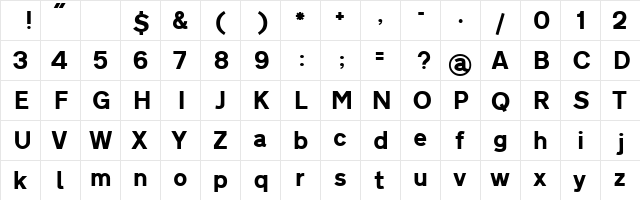
Roadgeek Transport Heavy Regular
Design Context for Roadgeek Transport Heavy Typeface
Roadgeek Transport Heavy brings high-energy athletic personality to the page — its confident, muscular forms are built for impact.
A natural choice for gym brands, fantasy sports, jersey lettering, and action-driven headlines.
Pro Tip: Use Roadgeek Transport Heavy in all-caps headlines where its athletic energy can fully express itself. Pair with a solid, simple sans for supporting text.